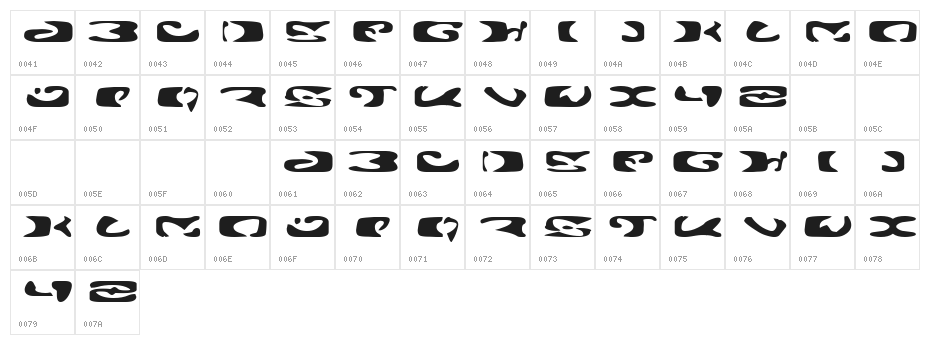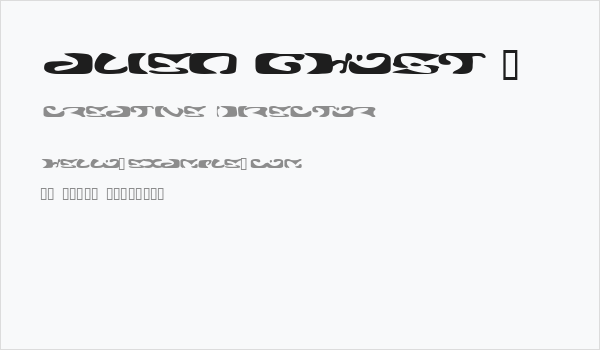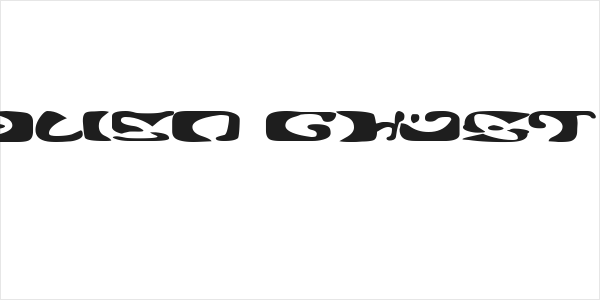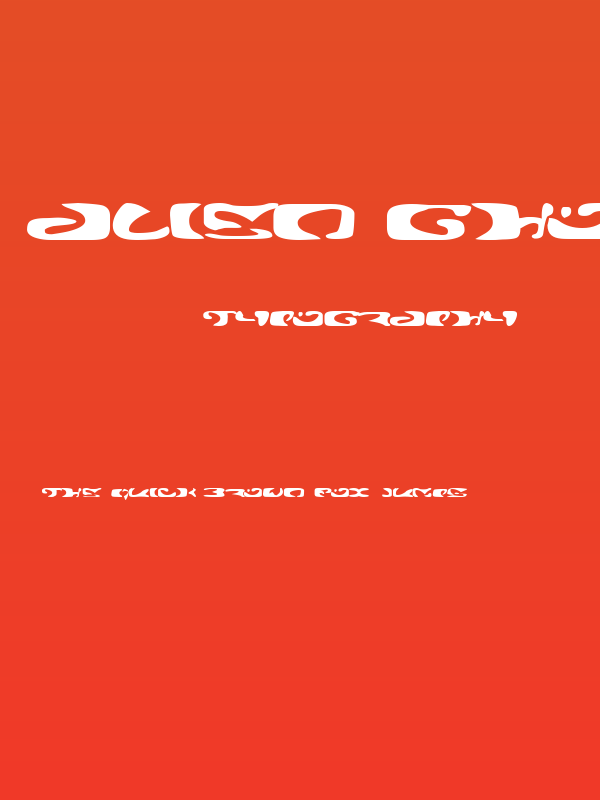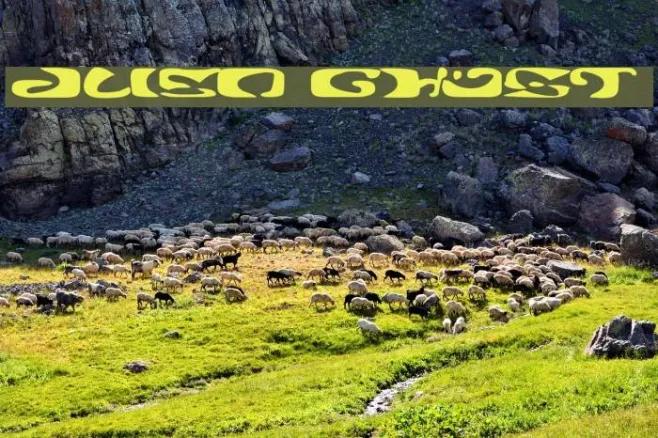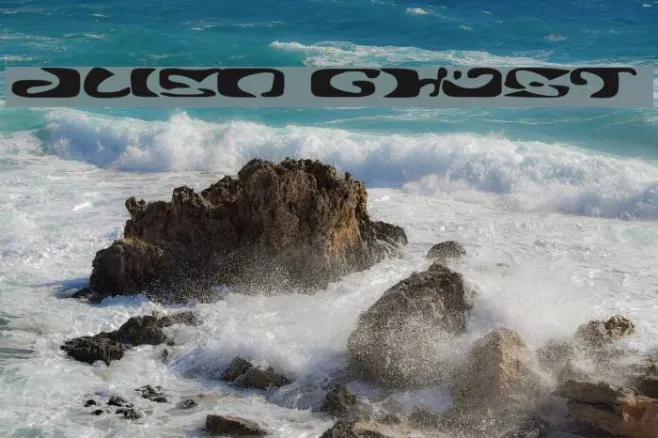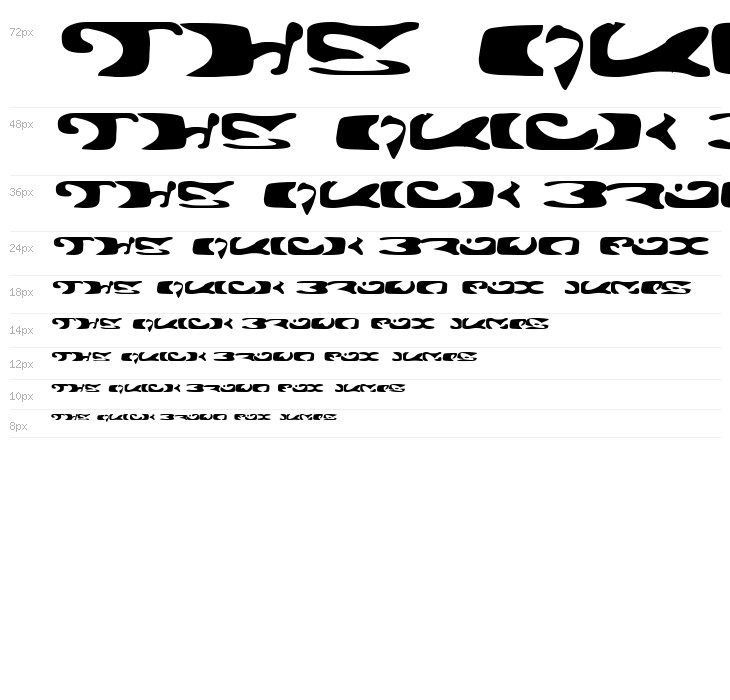
Alien Ghost 2 Font
Alien Ghost 2 Description
This font features a highly stylized and abstract design, with each character appearing as if it is part of an alien or otherworldly script. The letters are bold and have a unique, flowing form that suggests movement and fluidity. The overall appearance is both futuristic and mysterious, with a strong emphasis on artistic expression. The characters are tightly spaced, enhancing the compact and cohesive look of the text. The font's high contrast between thick and thin strokes adds to its dramatic and eye-catching style.
| Overall Style | Futuristic, Abstract |
| Proposed Projects | Ideal for sci-fi themed projects, video game titles, movie posters, and any creative work that requires a unique and striking typeface. |